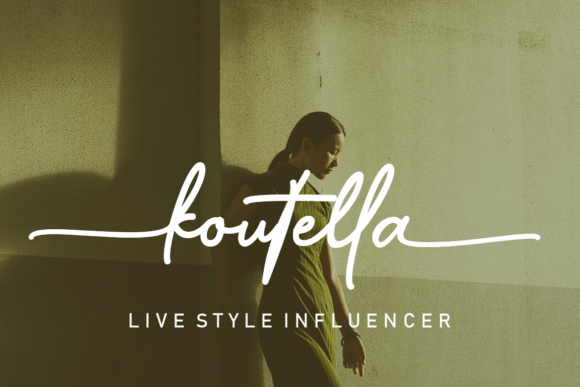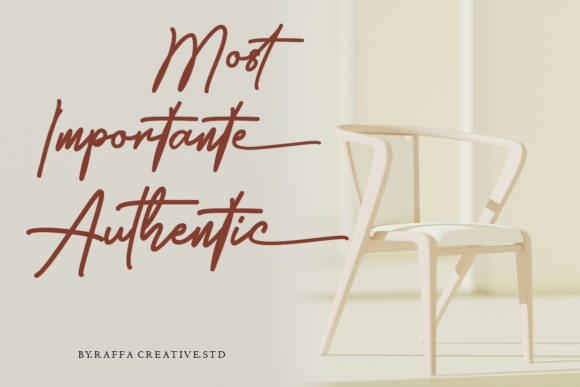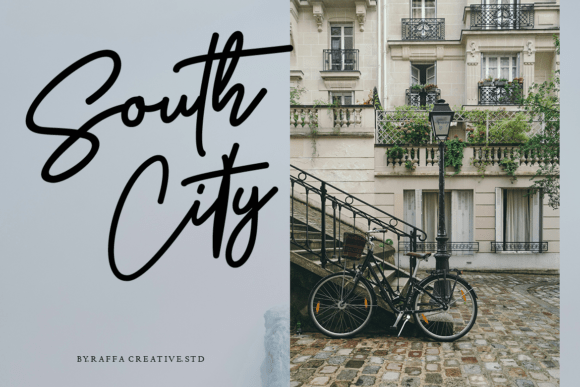
Bella Font: Elevate Your Designs with a Touch of Elegance
In the world of typography, a font can make all the difference in the aesthetic and feel of a design. For those seeking a natural, handwritten script that exudes elegance and sophistication, Bella Font is an exceptional choice. Inspired by modern calligraphy and casual font styles, Bella is meticulously crafted with curves and natural strokes, making it perfect for a wide range of design applications.
The Inspiration Behind Bella Font
Bella Font is a beautiful, natural handwritten script font that draws inspiration from modern calligraphy and casual typography. The creator’s goal was to produce a font that embodies the essence of traditional calligraphy while maintaining a modern and approachable feel. The result is a versatile font that can adapt to various design needs, from wedding designs and logos to social media graphics and more.
Key Features of Bella Font
- Natural Handwritten Style: Bella Font boasts a genuine, handwritten look that adds a personal touch to any design.
- Modern Calligraphy Inspiration: With its roots in modern calligraphy, Bella Font brings a level of sophistication and elegance to designs.
- Crafted with Curves and Natural Strokes: The font’s meticulous crafting ensures that each letter and stroke appears natural and fluid, making it highly readable and visually appealing.
- High Versatility: Whether you’re working on wedding designs, logos, invitations, or social media content, Bella Font adapts effortlessly to your vision.
Bella Font’s versatility makes it suitable for numerous design applications. Here are some of the areas where this font truly shines:
Wedding Designs
For wedding designs, Bella Font offers the perfect blend of romance and sophistication. Use it for wedding invitations, save-the-date cards, or ceremony programs to set the tone for a memorable event.
Modern Calligraphy Logos
Businesses looking for a logo that conveys elegance and modernity will find Bella Font to be an excellent choice. Its calligraphy-inspired strokes and natural flow make it ideal for branding and logo design.
Display Products and Invitations
For display products, such as posters, banners, and advertisements, Bella Font’s readability and aesthetic appeal make it a top pick. Additionally, its casual yet elegant feel is perfect for various types of invitations, from formal events to casual gatherings.
Title Books and Headers
In the realm of publishing, Bella Font can add a touch of class to title pages, chapter headers, and other design elements in books and magazines.
Branding and Social Media
Bella Font is also well-suited for branding and social media content. Use it to create consistent and recognizable brand messaging across various platforms, from Instagram posts to Facebook headers.
Why Choose Bella Font?
Choosing Bella Font for your design projects comes with several advantages:
- Elegant and Versatile: It offers the perfect balance of elegance and versatility, suitable for a wide range of design applications.
- Easy to Read: Despite its elegant and cursive nature, Bella Font remains highly readable, making it practical for various uses.
- Time-Saving: With a comprehensive set of characters and ligatures, designers can work more efficiently without compromising on aesthetics.
Bella Font is a beautiful, natural handwritten script font that brings a touch of elegance and modernity to any design project. Its inspiration from modern calligraphy and casual typography, combined with its meticulous crafting, makes it a versatile and valuable addition to any designer’s toolkit. Whether you’re aiming for a modern, sophisticated look or a classic, romantic feel, Bella Font adapts effortlessly to your vision, making it perfect for wedding designs, logos, invitations, and much more. Elevate your designs with Bella Font and discover the difference a beautiful, well-crafted typeface can make.